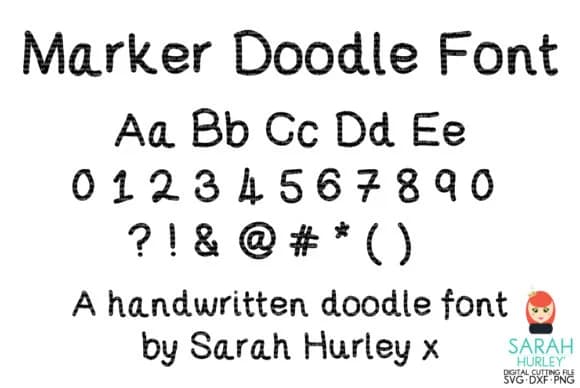
About Marker Doodle Font
Marker Doodle Font by Sarah Hurley is a playful hand-drawn script that captures the spontaneous energy of sketched letterforms with natural, organic character. This informal typeface excels in projects where authentic personality matters, from greeting card designs and scrapbooking layouts to children's book illustrations and craft project labeling where handmade charm enhances the visual impact. The doodle-inspired aesthetic brings a youthful, approachable quality that feels both genuine and contemporary, making it ideal for creative professionals who prioritize distinctive character and individuality over polished, corporate aesthetics. The font's loose, sketchy letterforms set it apart in applications ranging from product packaging for kids' brands to DIY event invitations and custom journal embellishments. Its remarkable versatility works equally well in print and digital contexts, whether you're creating stickers, social media graphics, website headers, or decorative design elements for craft projects. Parents, educators, craft enthusiasts, and small business owners will find this typeface essential for designs celebrating creativity, personality, and genuine human expression. The informal nature of Marker Doodle makes it particularly effective when used as a standalone statement element or layered with complementary fonts to enhance visual hierarchy and design interest. Bring playful authenticity to your creative vision with Marker Doodle Font, exclusively available on Creative Fabrica.
Marker Doodle Font is a script font that shines as a display or heading face. Pair it with a clean sans-serif or serif font for body text β the contrast creates a clear hierarchy while the two styles stay balanced and easy to read.
Marker Doodle Font
by Sarah Hurley